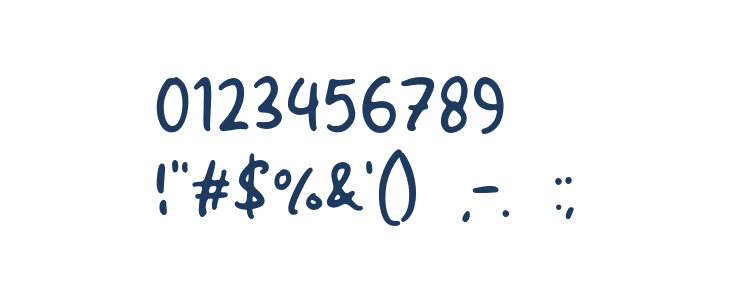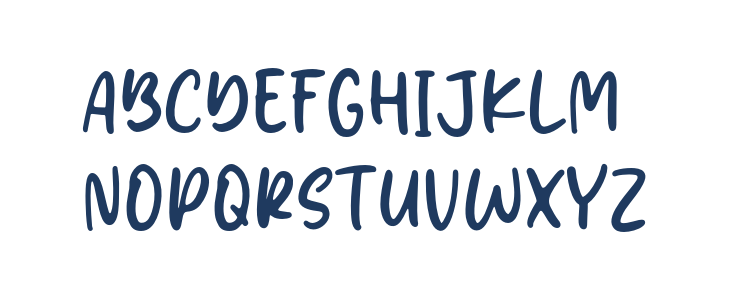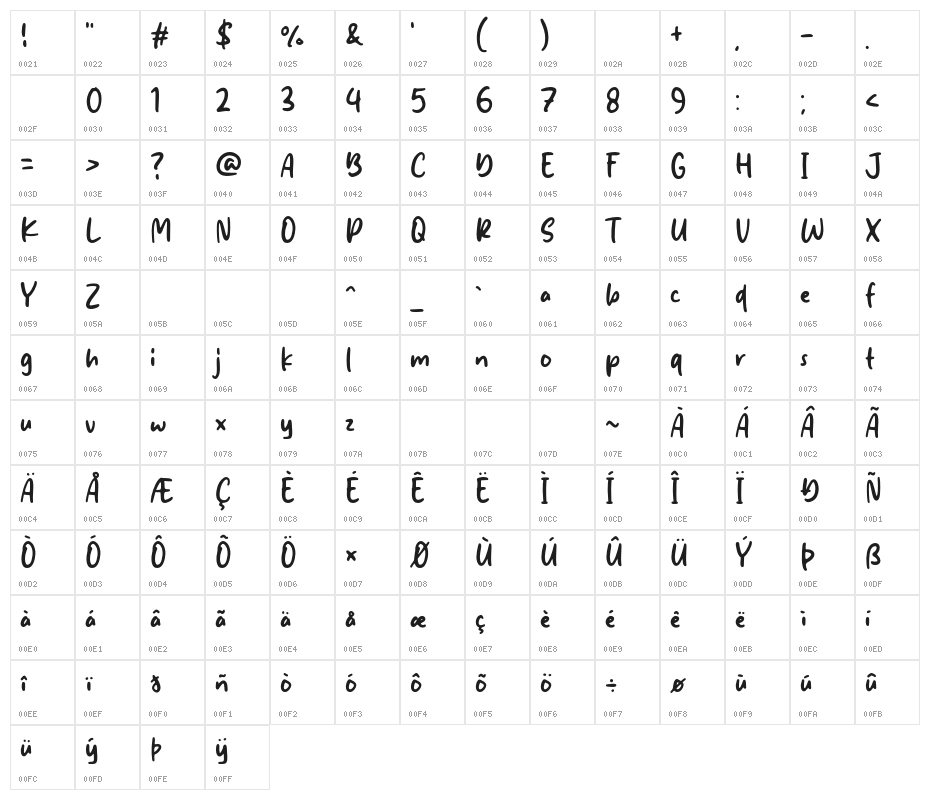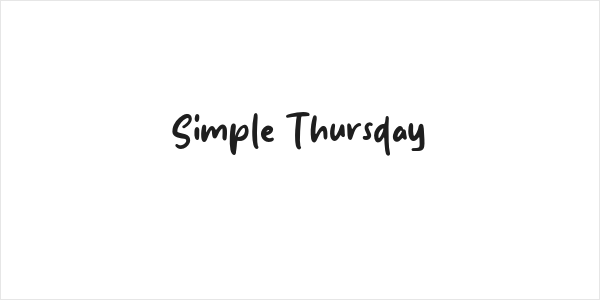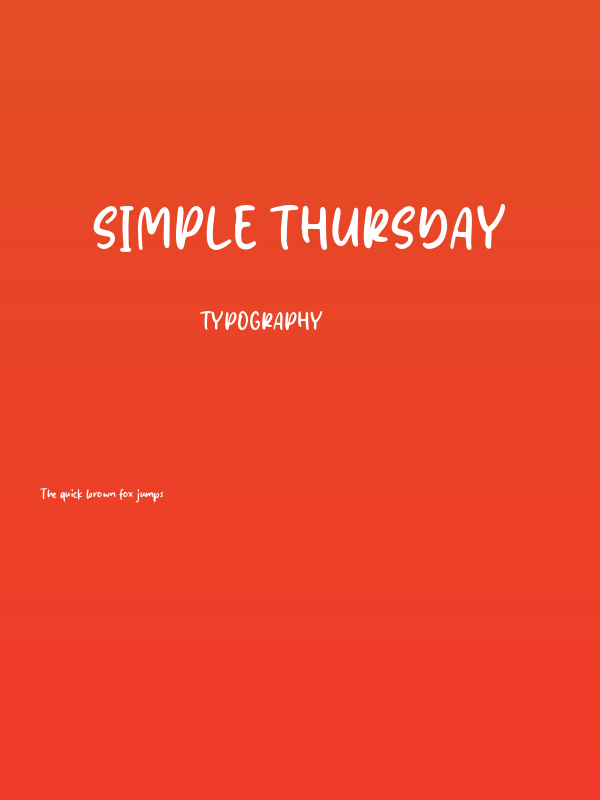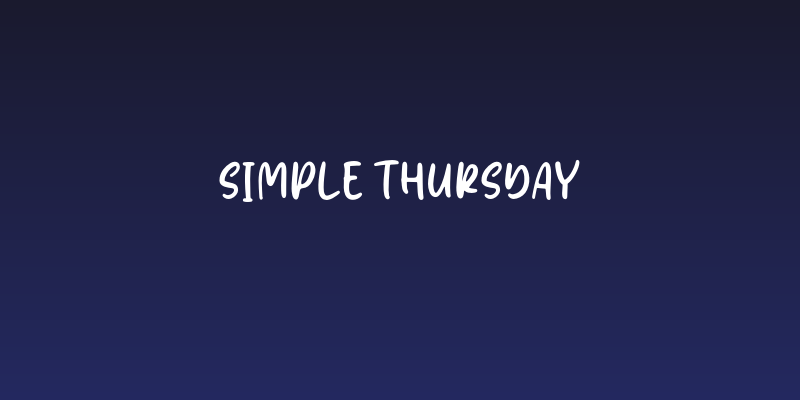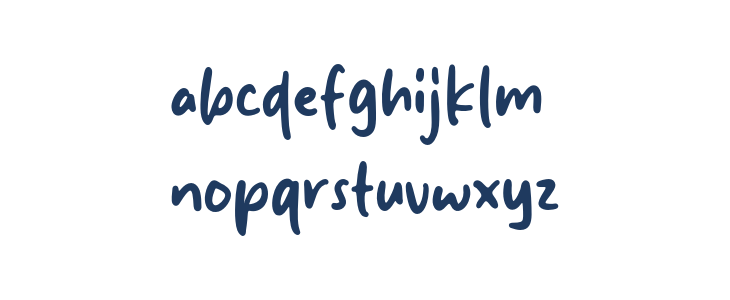
Simple Thursday Font
Simple Thursday Description
A playful, rounded handwritten font with consistent stroke thickness and informal, friendly letterforms. The characters have a casual, slightly irregular appearance, mimicking natural handwriting. Uppercase and lowercase letters are well-proportioned, with open counters and smooth curves.
Overall StylePlayful, Casual, Handwritten
Use CaseHeadlines, Short text, Informal branding, Posters
Proposed ProjectsChildren's books, greeting cards, posters, social media graphics, informal branding.